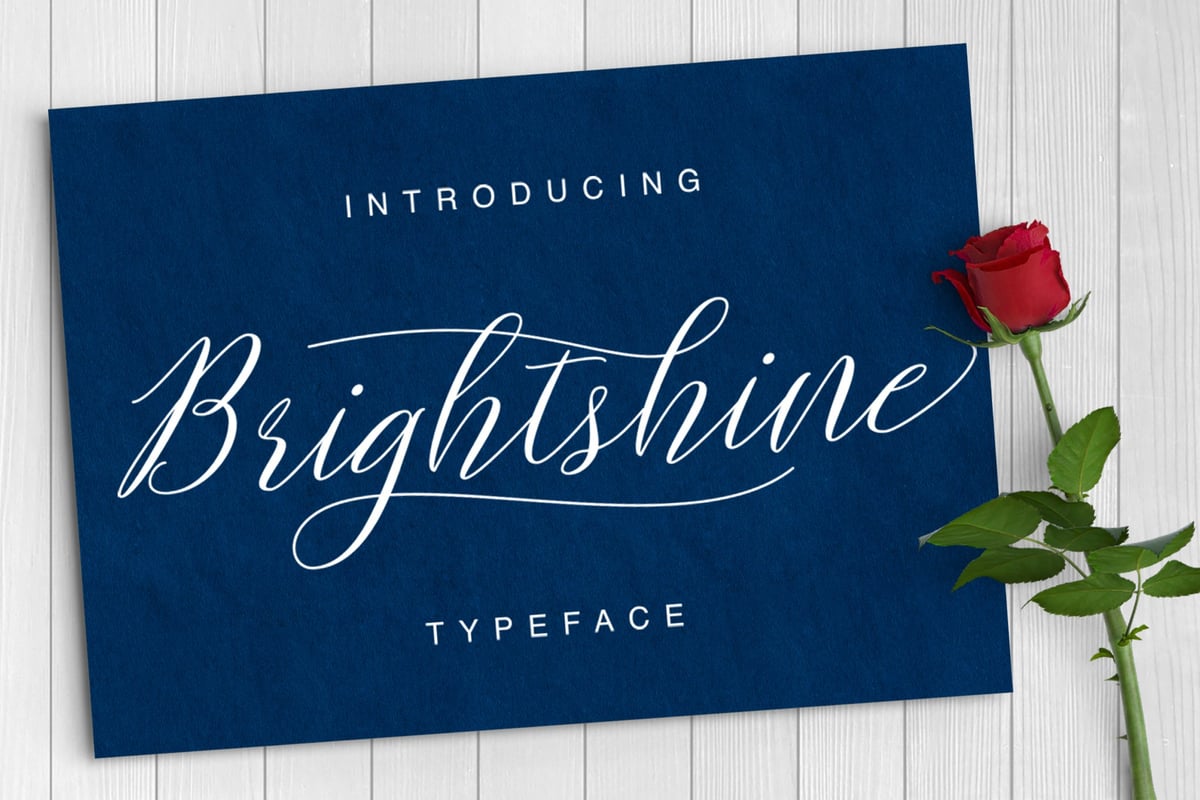
Brightshine Typeface
Brightshine is a modern calligraphy typeface that blends classic elegance with contemporary flair.
Born from the marriage of copperplate tradition and contemporary design, Brightshine delivers a beauty and elegance that feels both timeless and fresh. Whether you're crafting wedding invitations, apparel branding, greeting cards, or any project that calls for a natural, personal touch, this typeface rises to the occasion.
- 313 glyphs with extensive alternate characters
- Stylistic Alternates (7 styles)
- Standard Ligatures
- OpenType features support